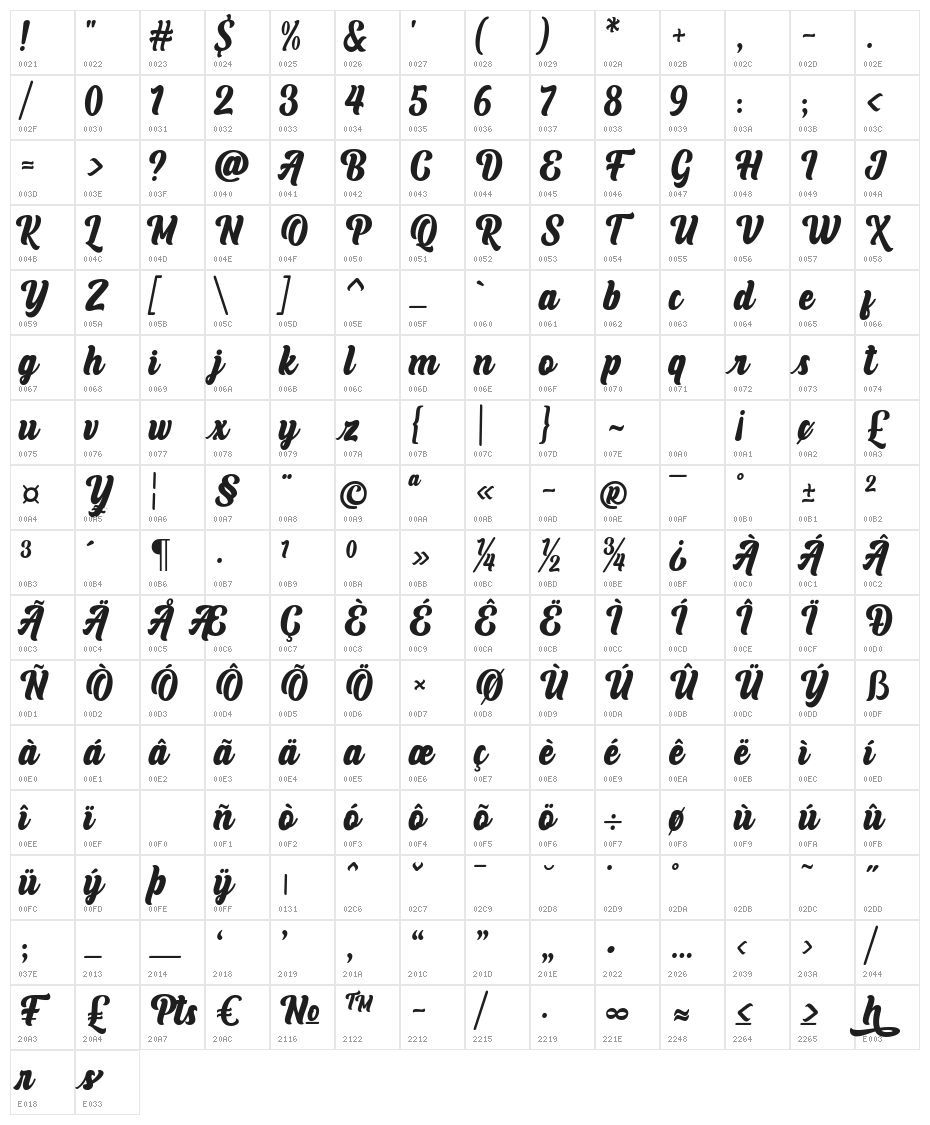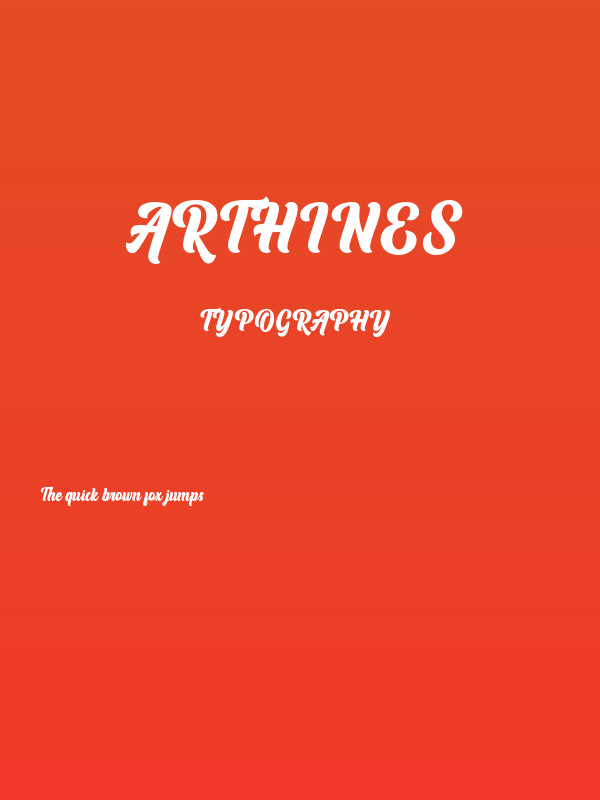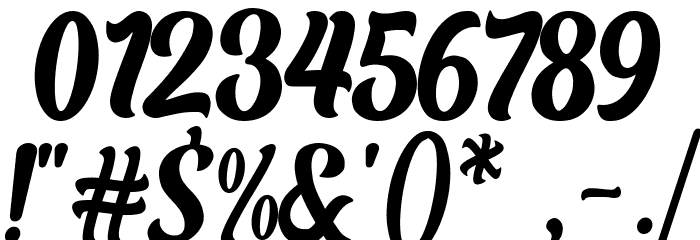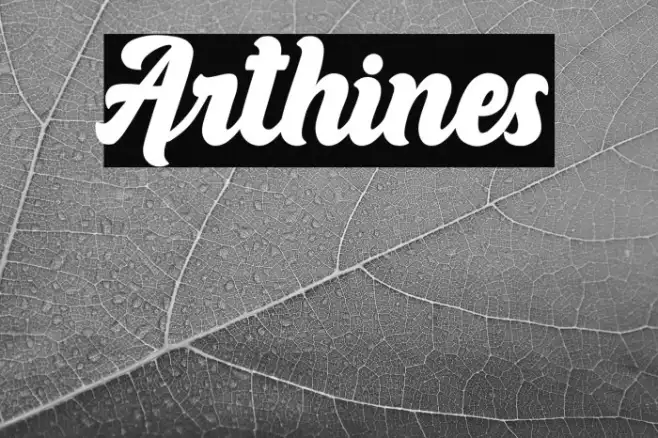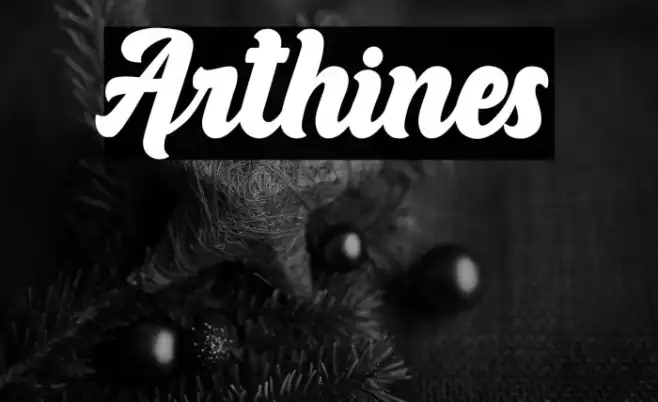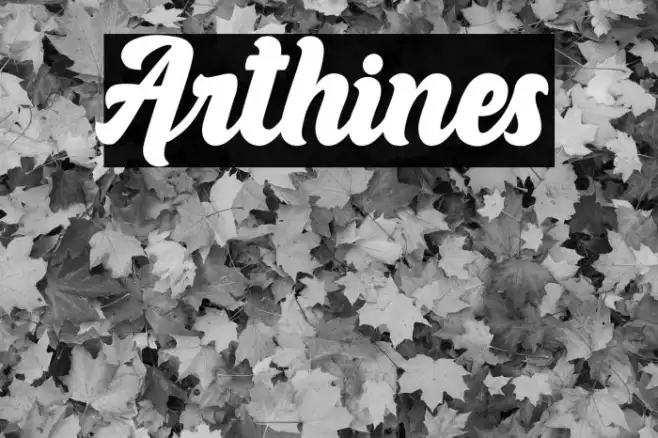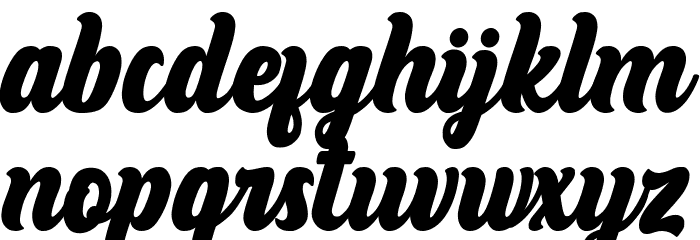
Arthines Font
Arthines Description
This font features a bold and flowing script style, characterized by its smooth, cursive strokes and elegant curves. The uppercase letters are slightly more ornate, with sweeping lines that add a touch of sophistication. The lowercase letters maintain a consistent flow, making the text appear connected and harmonious. Numbers and special characters are designed to match the overall aesthetic, ensuring a cohesive look throughout. The font's boldness makes it stand out, while its script nature adds a sense of elegance and charm.